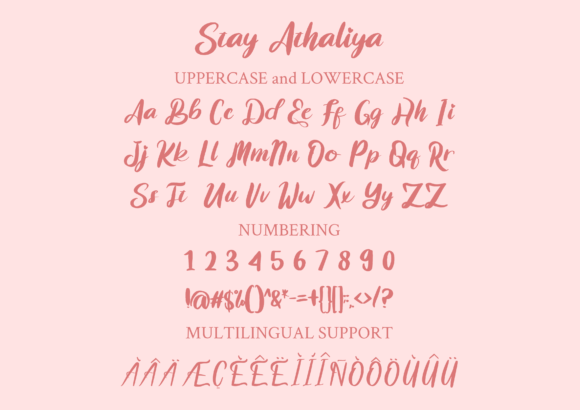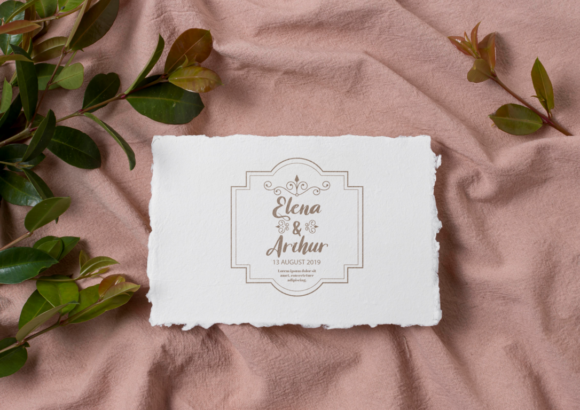
About Stay Athaliya Font
Stay Athaliya is a chic, refined script font that emanates sophistication and elegance. Its stylish alternates and ligatures make this font the perfect match for any project. This font is PUA encoded which means you can access all of the beautiful glyphs and swashes with ease!